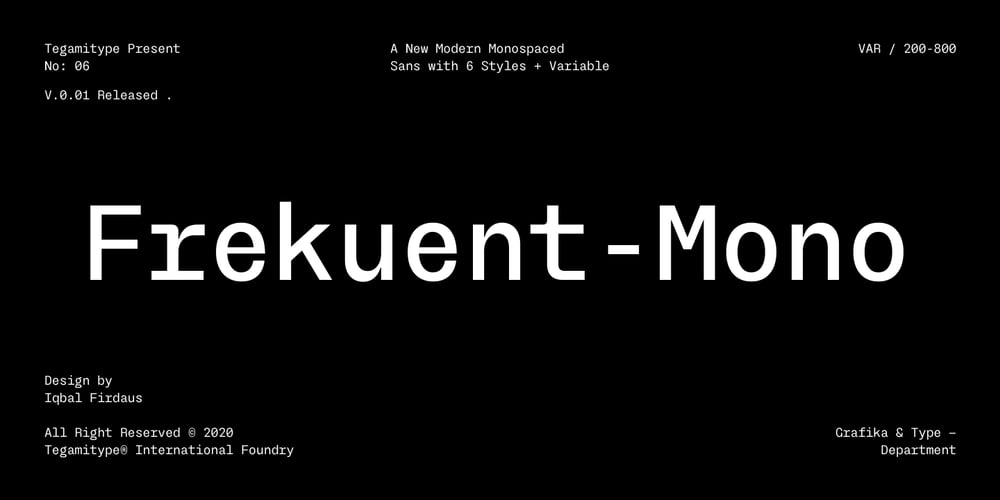
TG Frekuent Mono
TG Frekuent Mono font
TG Frekuent Mono Font Family was designed by Iqbal Firdaus and published by Tegami Type. TG Frekuent Mono contains 7 styles and family package options. TG Frekuent Mono a new modern geometric sans serif with monospaced style. This typeface is made with precise calculations so that it displays a beautiful and modern appearance. Besides this new typeface is also equipped with six different styles, ranging from ultra light to extra bold plus variable font. This typeface also has various alternative characters that can be used according to the needs in the design. Alternative characters that exist in this type of font have a touch of script typeface so that it makes the alternative character of this type of letter a little quirky and different but still fits well with the combination of modern main characters. And supports approximately 100 languages.